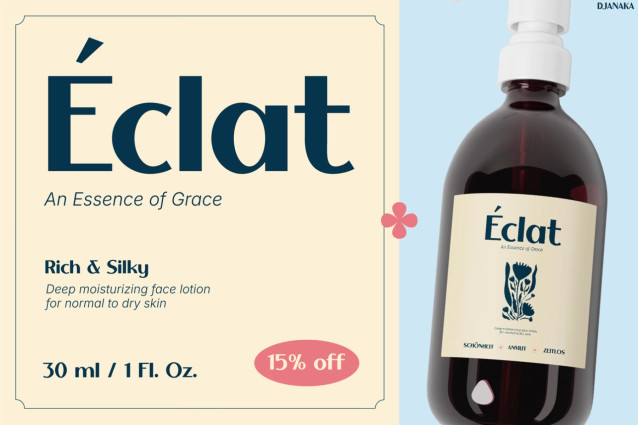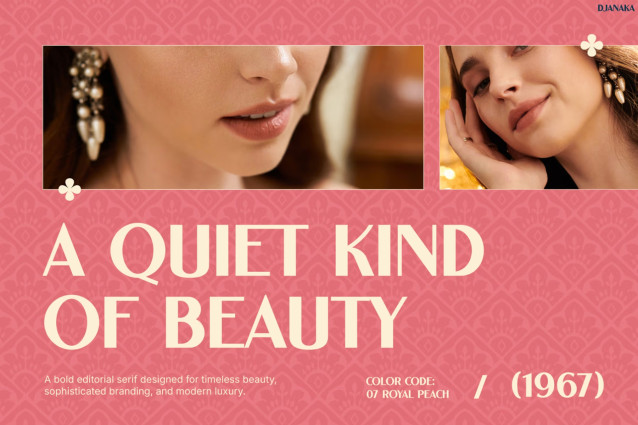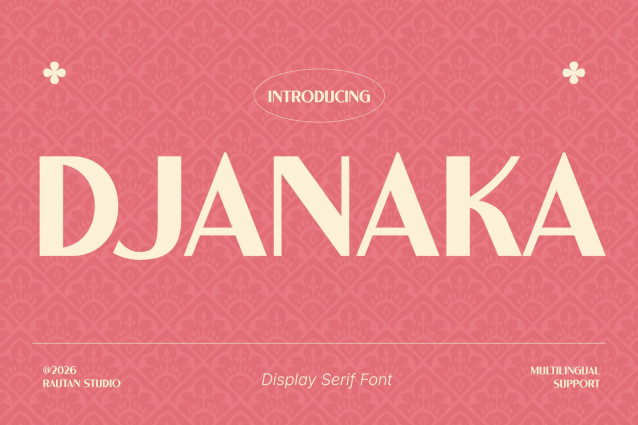
DJANAKA – Elegant Vintage Serif for Beauty & Fashion
Vintage Font DJANAKA is a graceful display serif with a refined vintage character. Its elegant letterforms create a soft, feminine, and timeless aesthetic. With its classic serif details, DJANAKA adds sophistication without feeling too formal. Moreover, its balanced shapes work beautifully for stylish headlines and memorable brand identities. At the same time, the font keeps your message clear and visually polished. Therefore, DJANAKA is a lovely choice for designs that need beauty, elegance, and a touch of retro charm. In addition, it comes with Multilingual Support for 67 Languages.